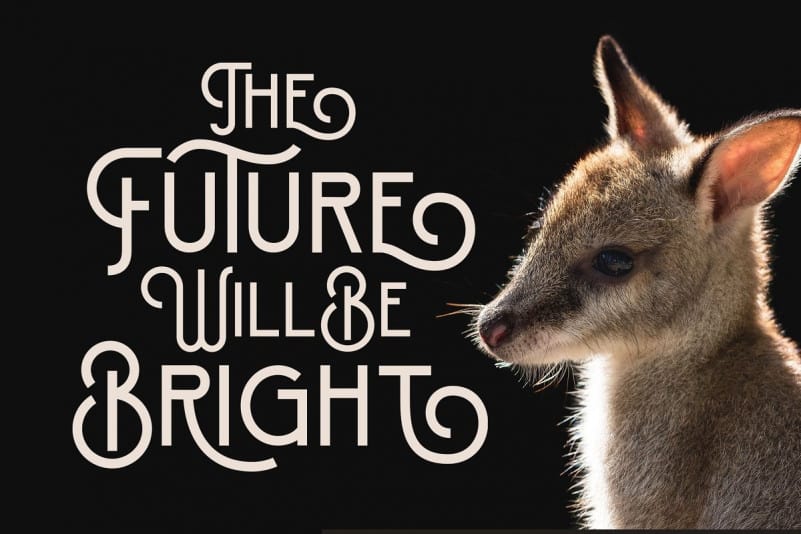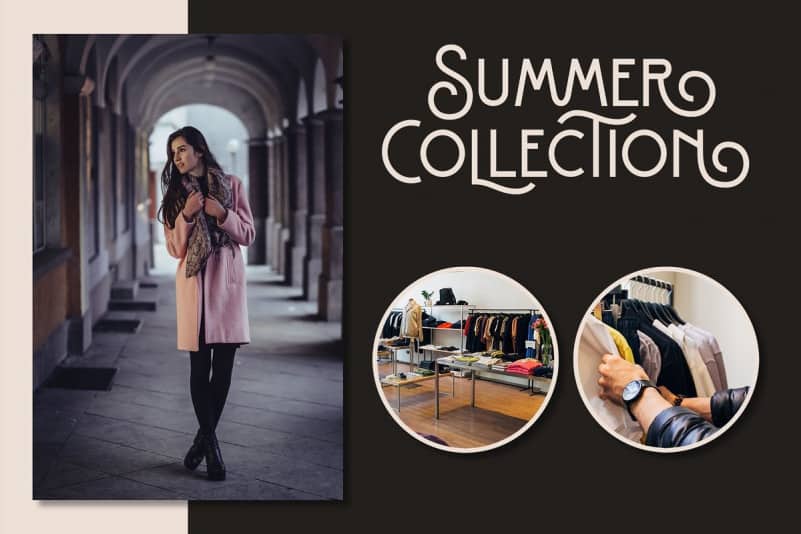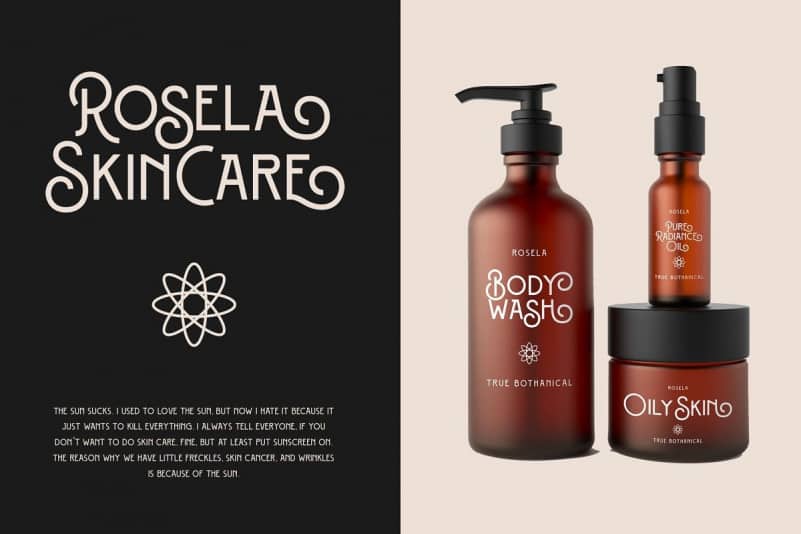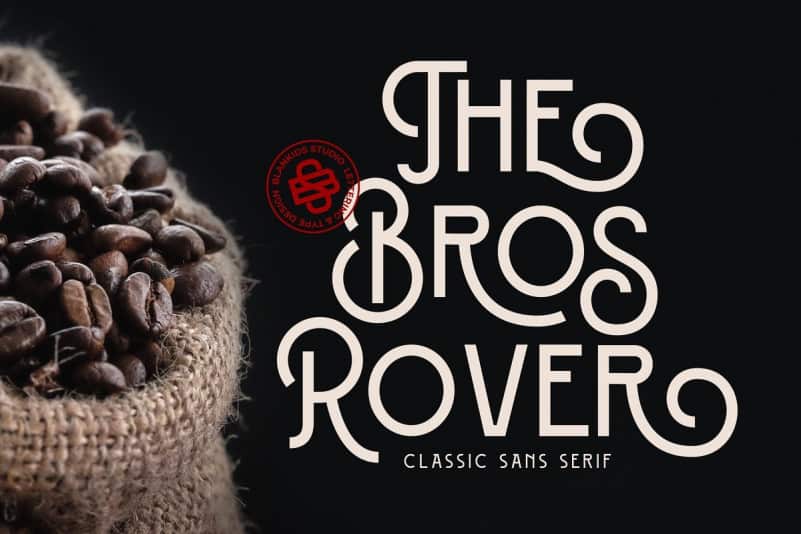
Hello friend. Bros Rover Sans Serif Font combines attractive curves with a fresh urban edge and build with all caps letters. Made from font designer named Blankids Studio. Bros Rover good for logotype, poster, badge, wedding invitation, book cover, tshirt design, packaging and any more. Use alternates to emphasize separate letters in your text.